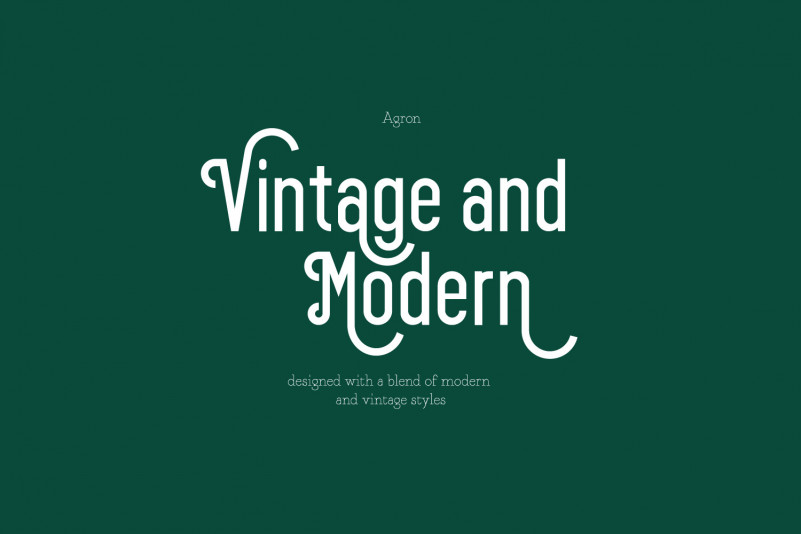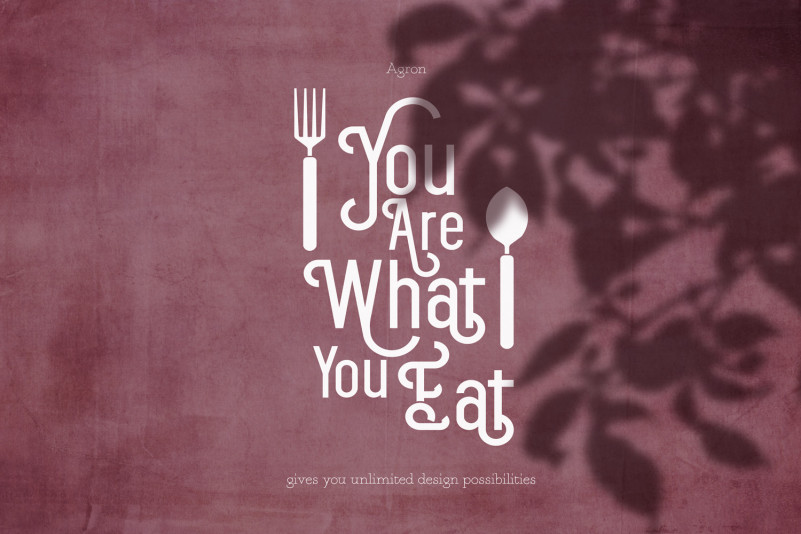
Agron Display Font
Agron Display Font is a san serif font designed with a blend of modern and vintage styles, this font is equipped with ligature, alternative letters and doodles, which gives you unlimited design possibilities, this font is great for your work such as posters, logos, magazines, covers, banners , t-shirts and headers, or even large-scale artwork.